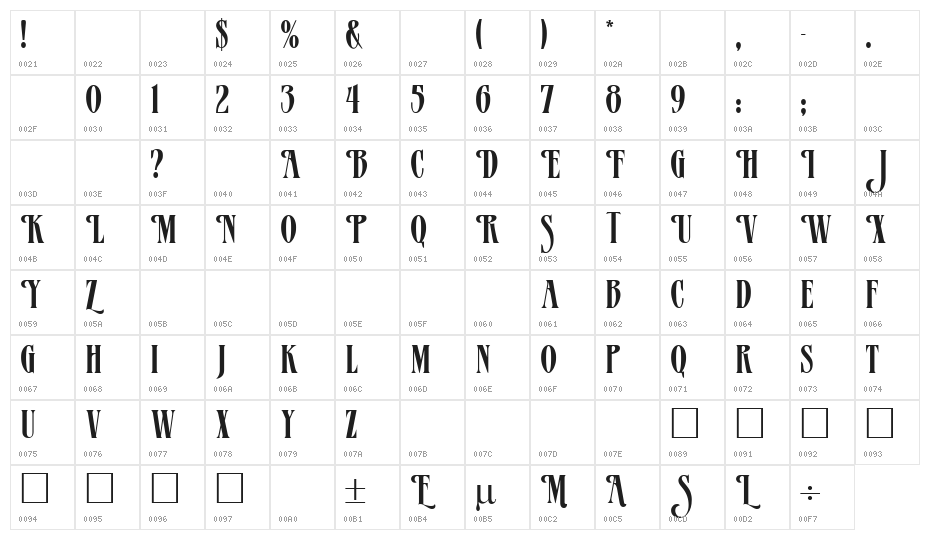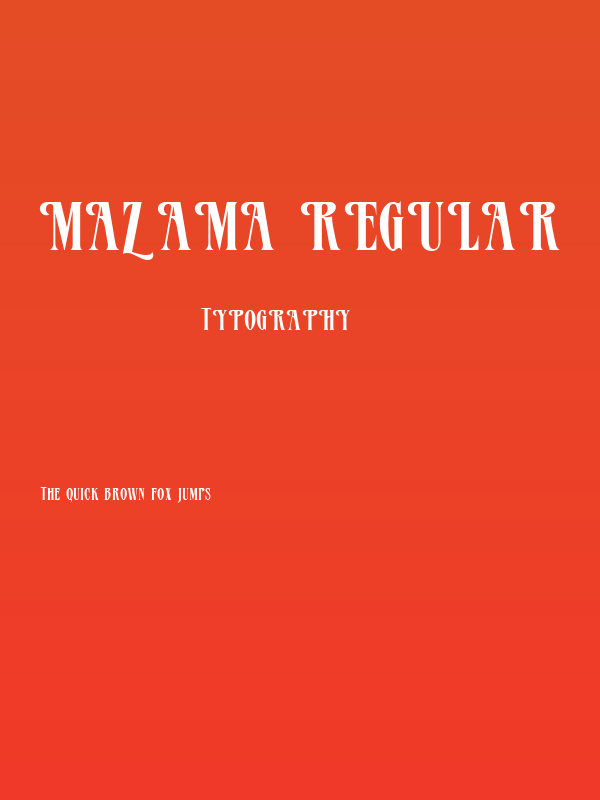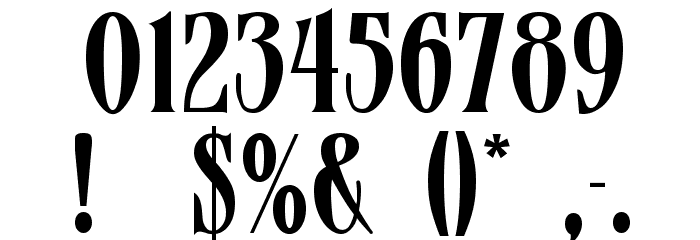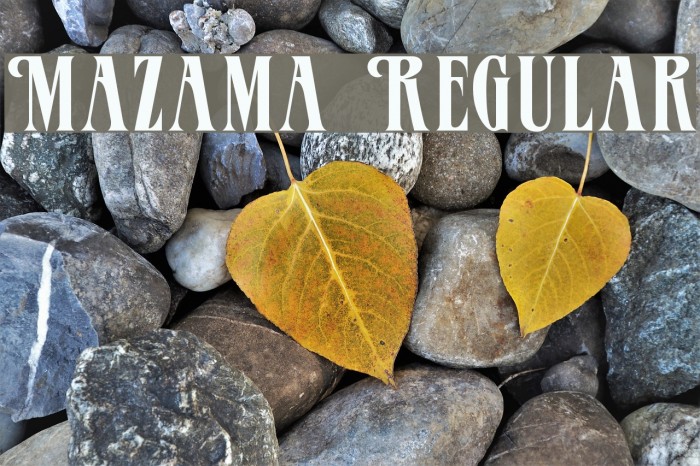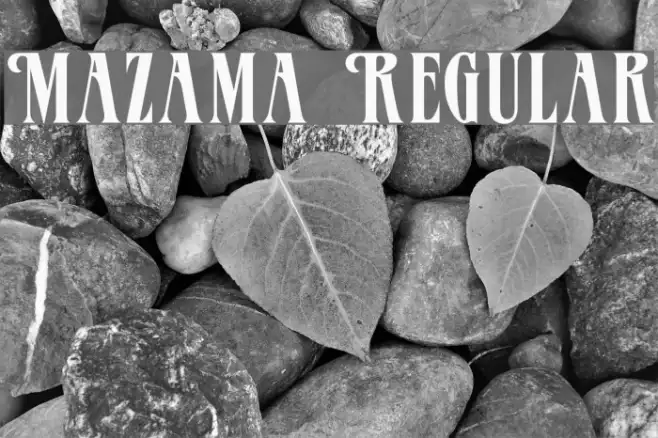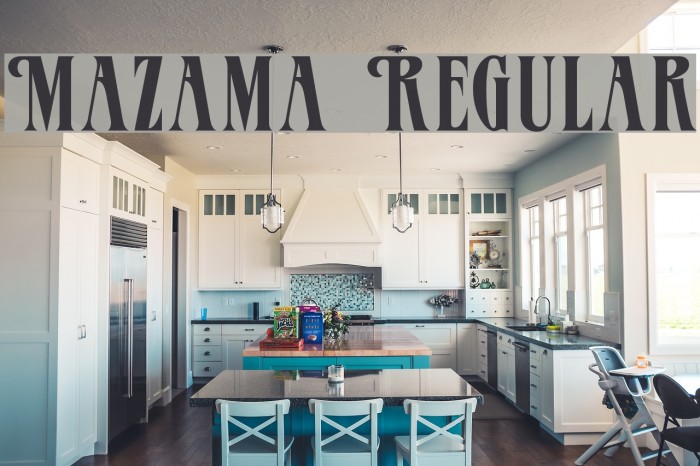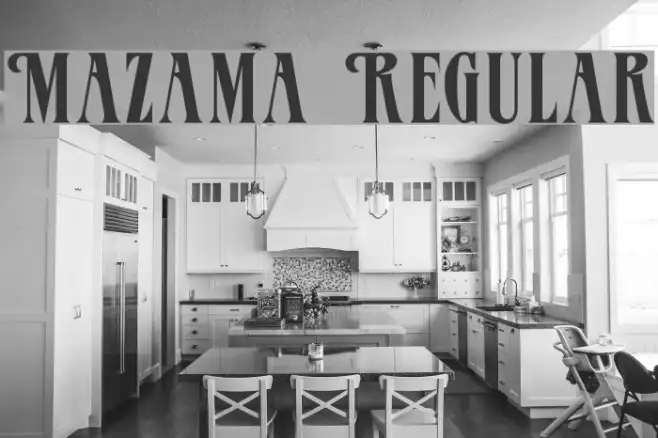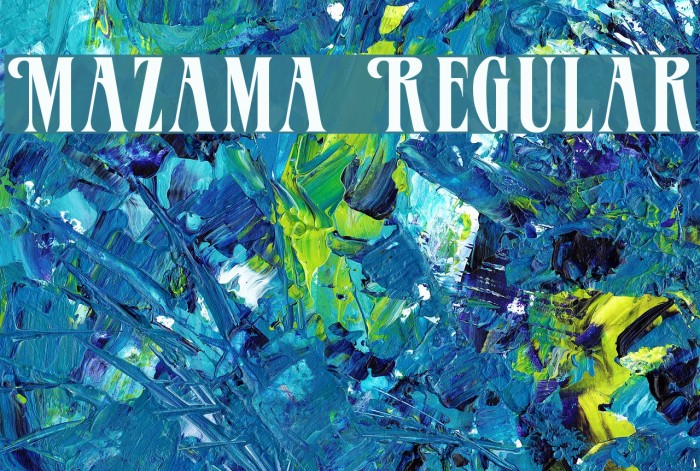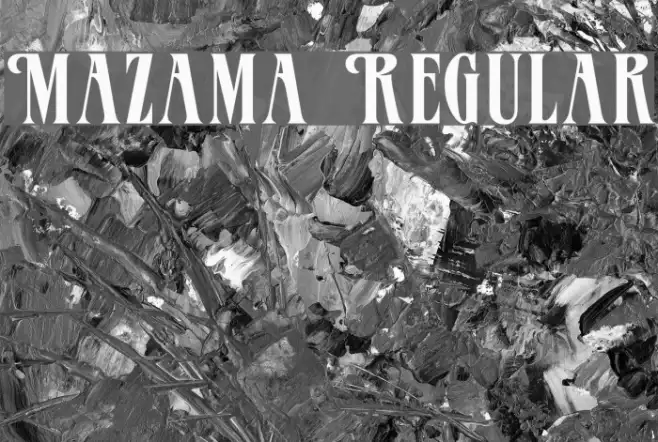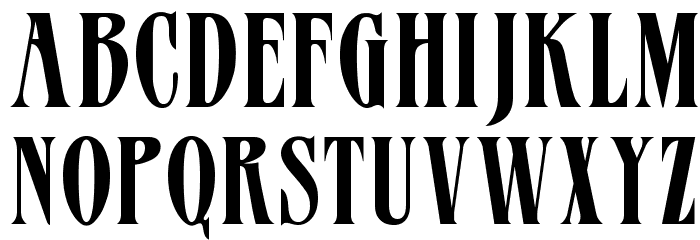
Mazama Regular Font
Mazama Regular Description
This font features a bold and dramatic style with high contrast between thick and thin strokes, giving it a striking appearance. The characters have a unique flair, with some letters exhibiting exaggerated curves and serifs that add to its decorative nature. The uppercase letters are particularly prominent, with a strong presence that commands attention. The numerals and special characters maintain the same boldness, ensuring consistency across all glyphs. This font is ideal for making a statement and is perfect for projects that require a touch of elegance and boldness.
| Proposed Projects | Ideal for headlines, posters, branding, and any design needing a bold, elegant touch. |